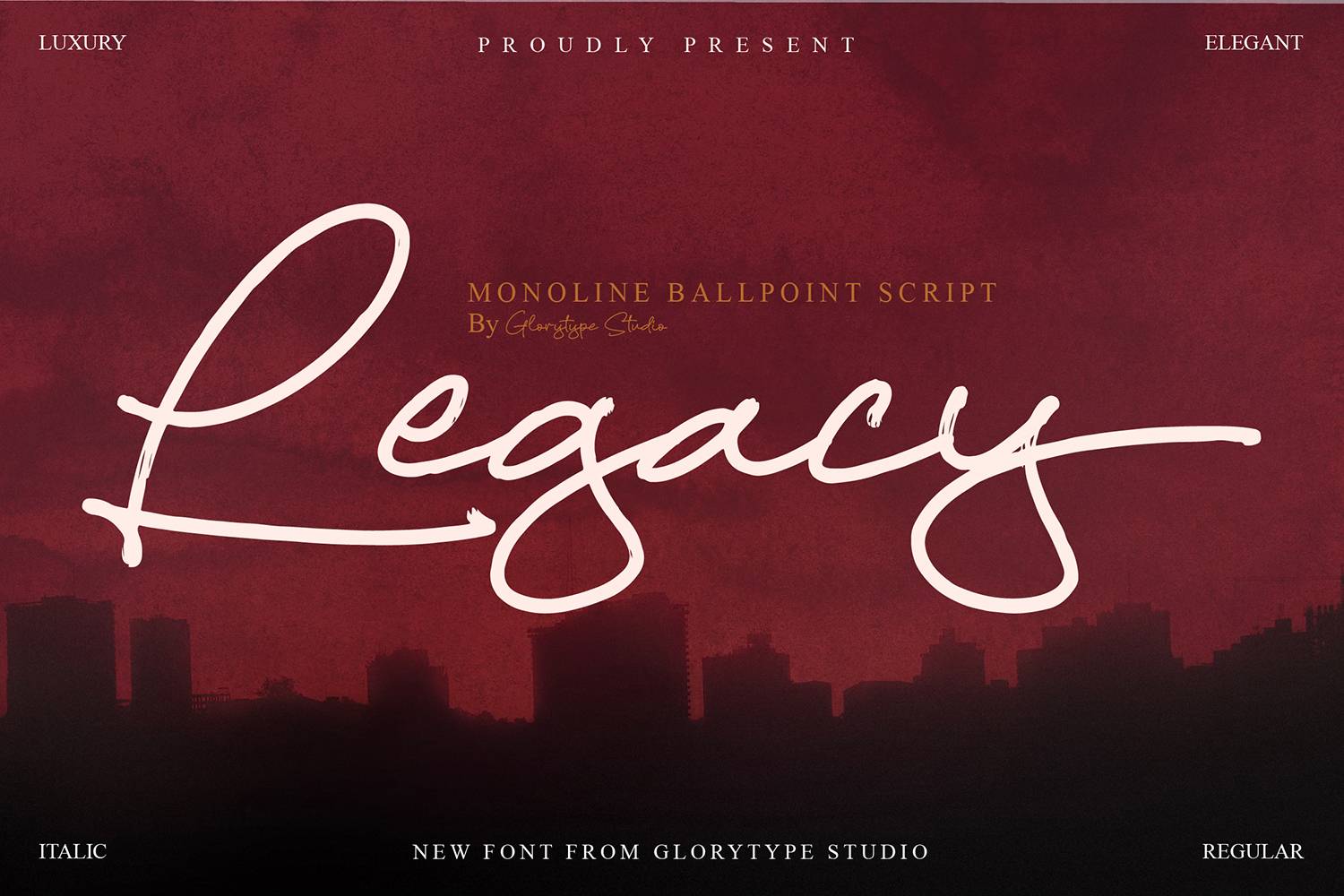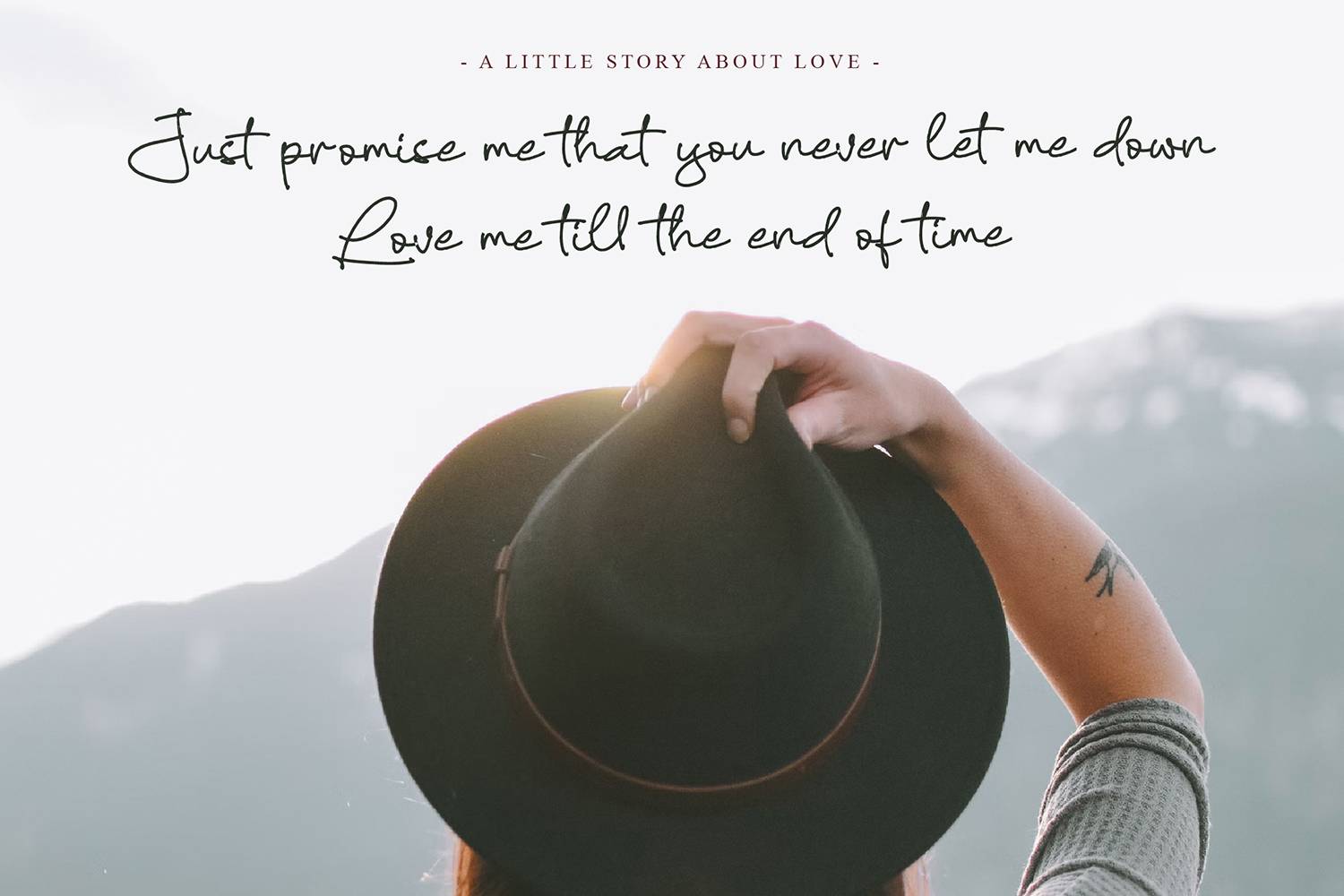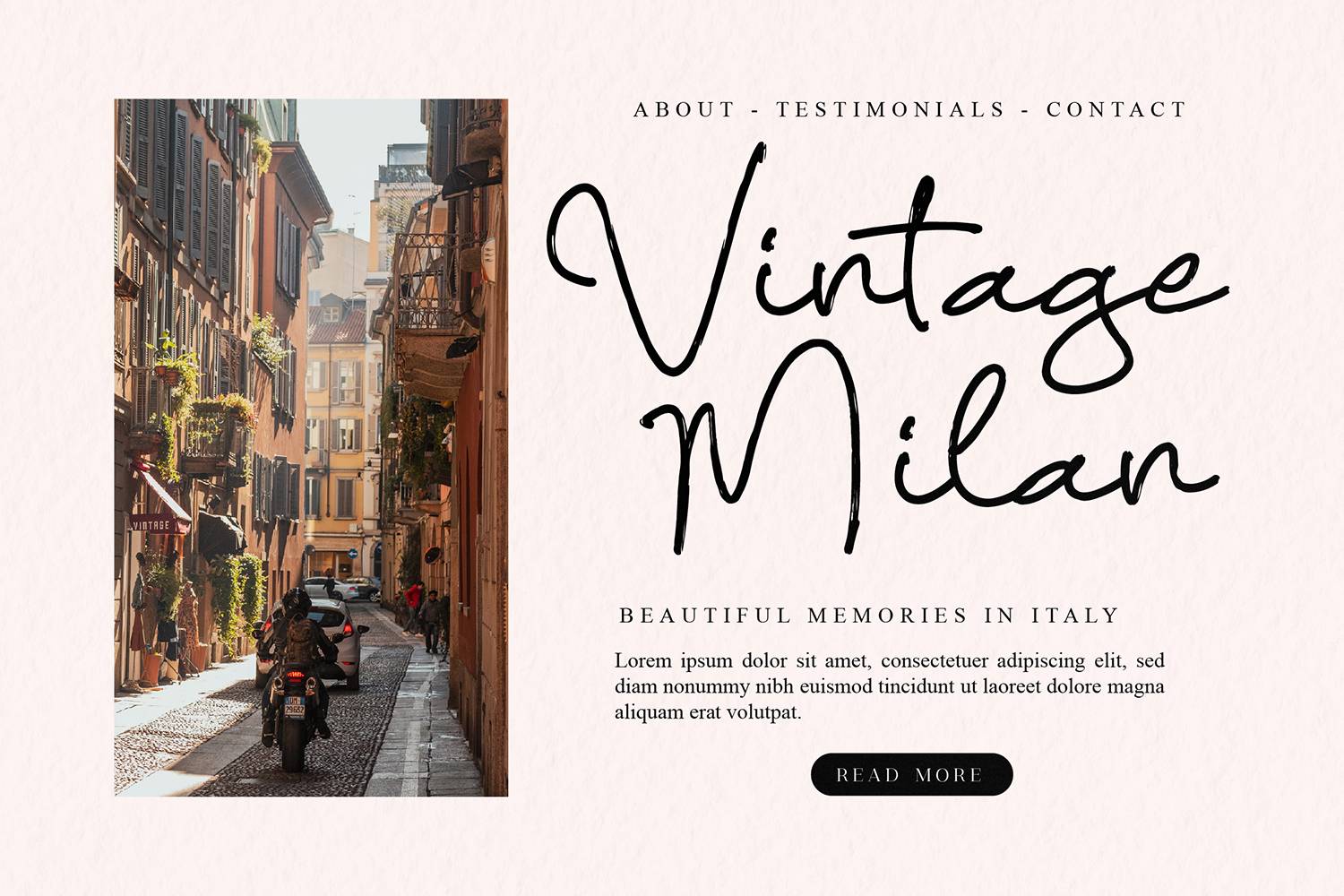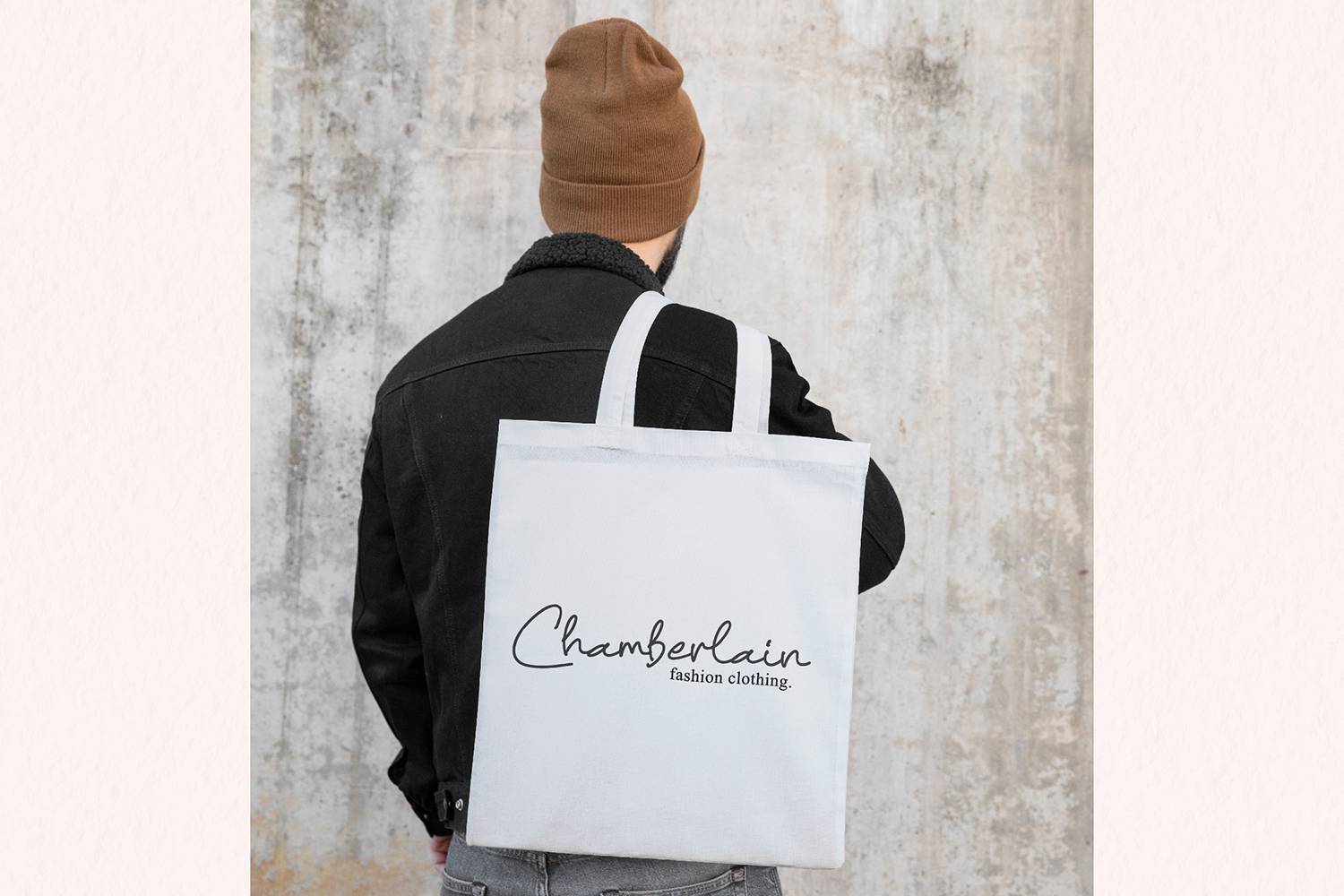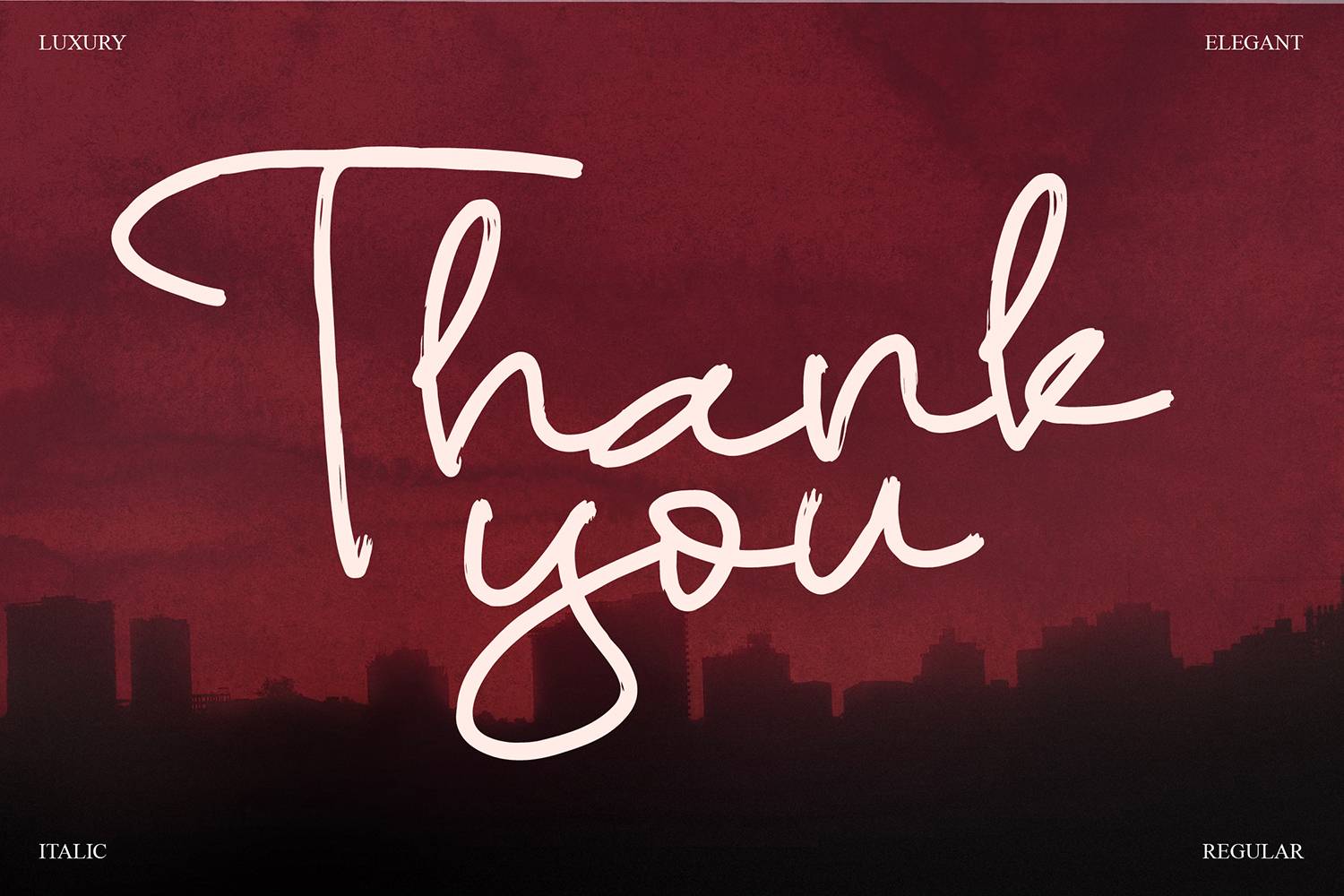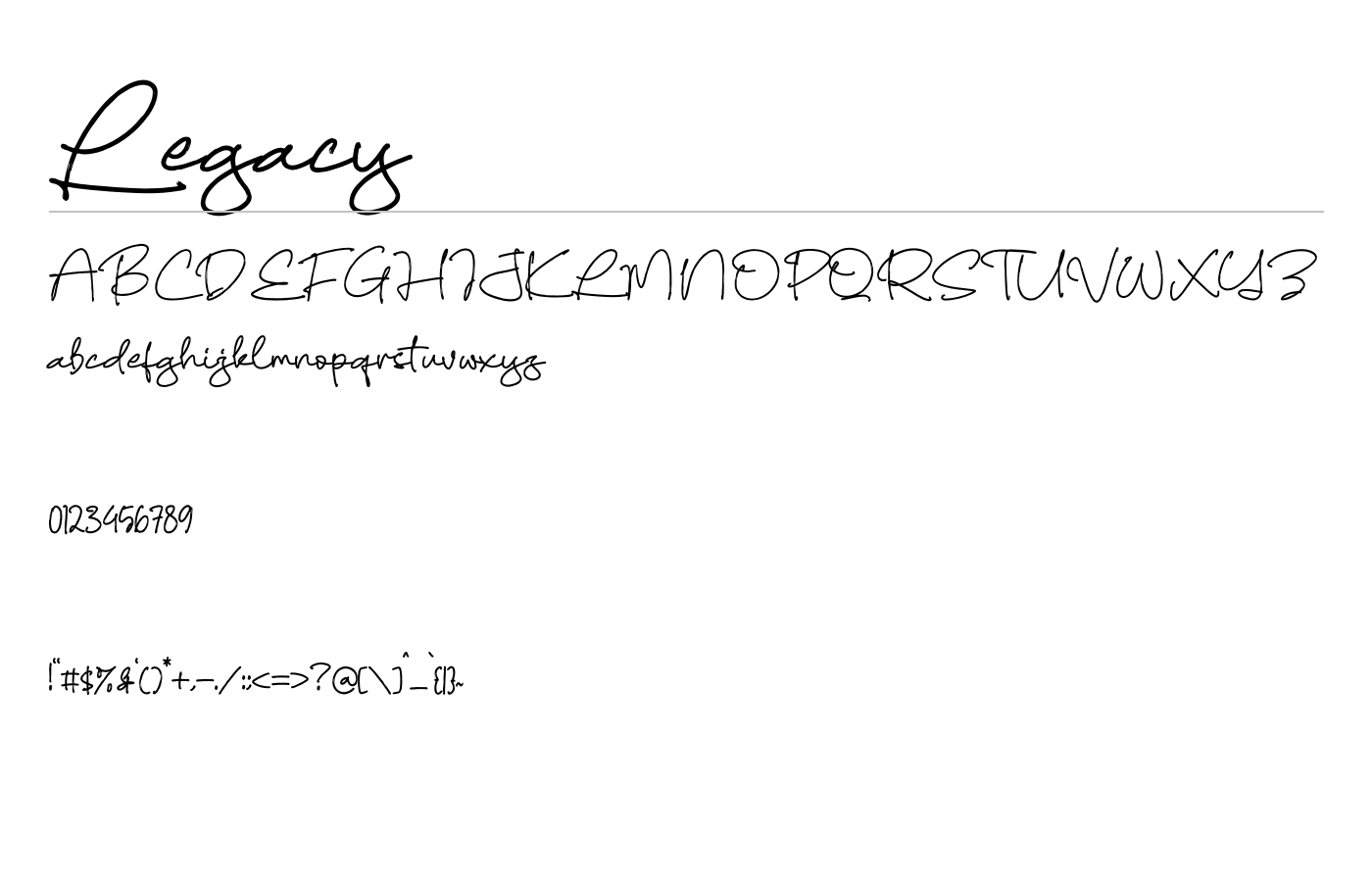
Legacy Font is a delicate, handwritten script with a light weight and airy feel, characterized by its fluid, slightly irregular strokes and high x-height that give it a personal and approachable charm. Its thin, calligraphic lines and casual letterforms make it ideal for creative projects, invitations, and branding that seeks an elegant yet friendly touch. This font works beautifully in contexts where a warm, humanistic, and artistic vibe is desired, such as lifestyle blogs, boutique logos, and personalized stationery.
Legacy Font
About Legacy Font